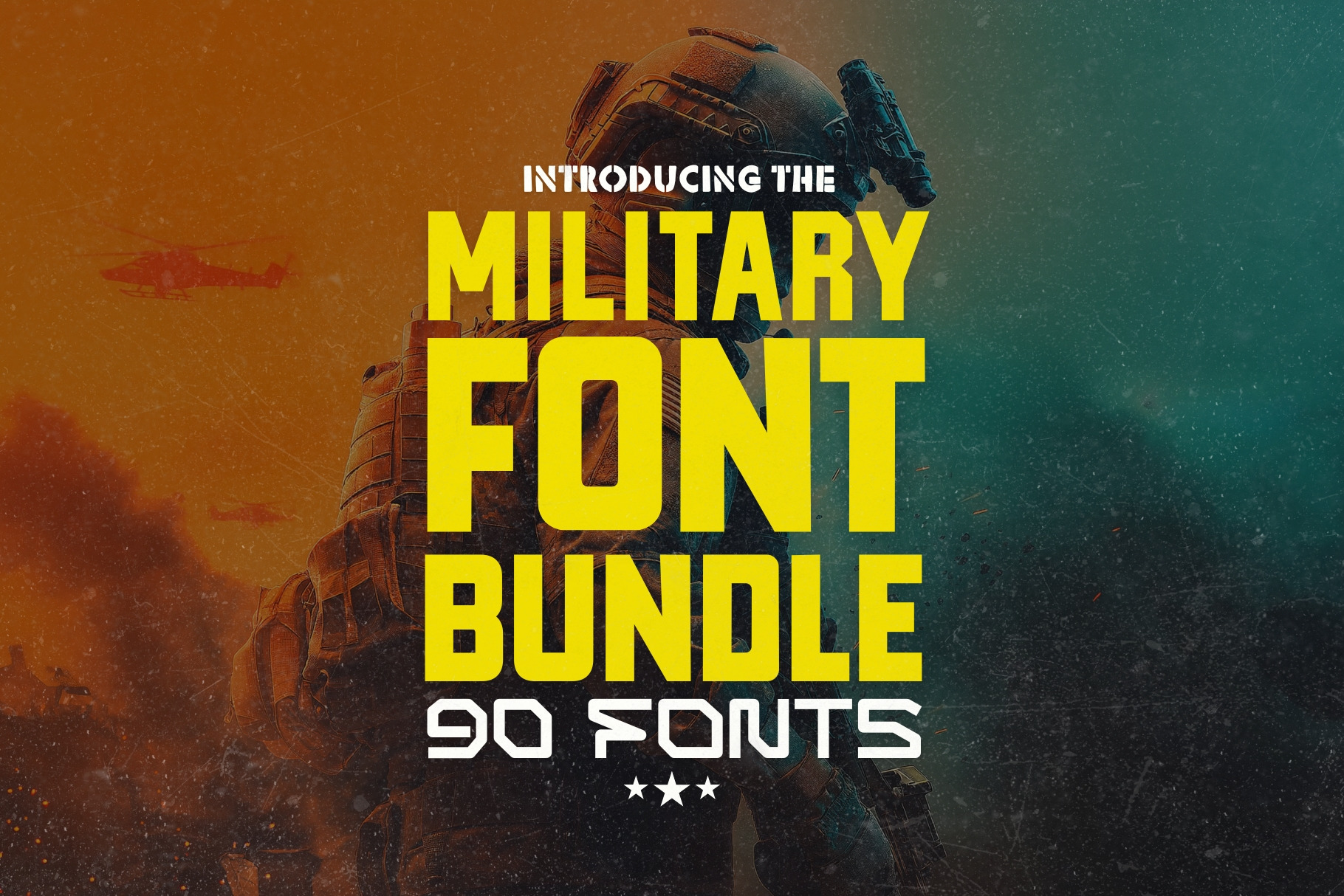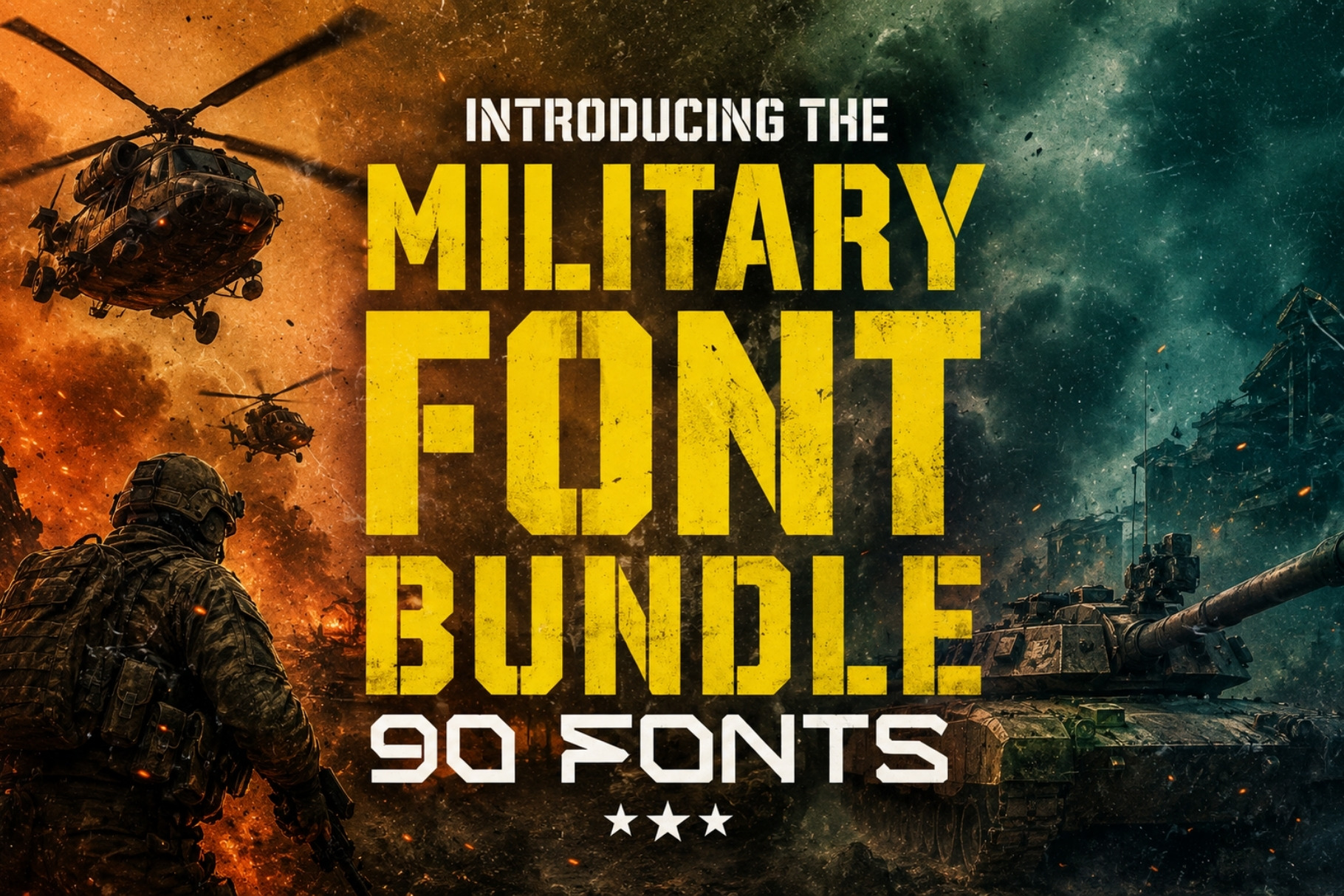
Military Font Bundle - 90 Fonts!
90 Bold, Rugged & Industrial Fonts Built for Power
Command attention with The Military Font Bundle—a massive collection of 90 bold, masculine, and industrial-inspired fonts designed to project strength, authority, and tactical precision.
Inspired by military stenciling, industrial machinery, tactical signage, and utilitarian design, this bundle is built for creators who want their typography to feel powerful, disciplined, and unbreakable. These fonts don’t whisper—they stand their ground.
Perfect for branding, apparel, posters, logos, packaging, gaming projects, YouTube thumbnails, social media graphics, and anything that demands a tough, no-nonsense visual identity.
✔️ 90 Military & Industrial Display Fonts A wide variety of bold, heavy, stencil-style, condensed, and rugged fonts designed to look strong, mechanical, and authoritative.
✔️ Built for Bold Branding Ideal for tactical brands, fitness & gym branding, streetwear, merchandise, gaming, action-themed projects, vehicles, labels, and industrial design.
✔️ Masculine, Gritty & Powerful Aesthetic Inspired by military markings, industrial typography, warning labels, and utilitarian signage.
✔️ Endless Creative Uses Perfect for logos, posters, patches, apparel, stickers, packaging, album covers, esports branding, and promotional graphics.
🔥 Strong Type for Strong Design The Military Font Bundle delivers uncompromising typography for creators who want their work to feel bold, industrial, and commanding.
If your brand needs grit, structure, and raw power—this bundle is mission-ready.